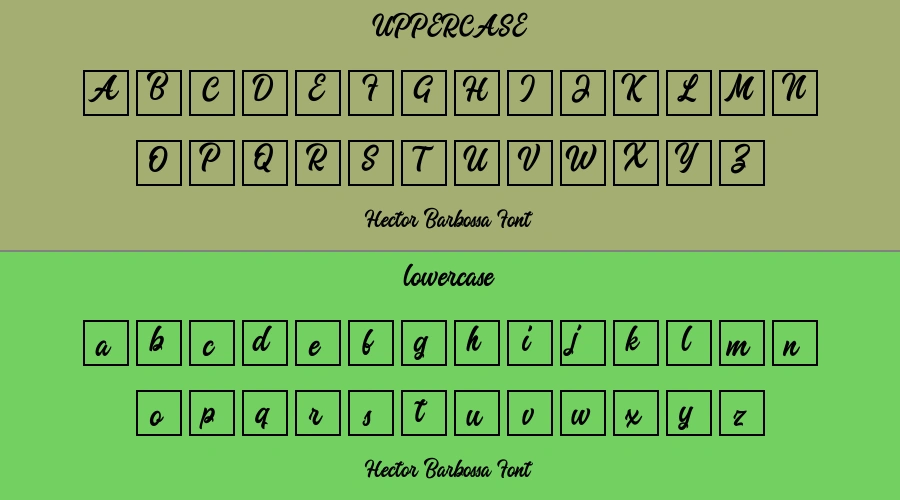
About Hector Barbossa Font
Hector Barbossa Font stands out for its distinctive combination of open counters and production readiness. Ideal for medical texts, it provides the consistency and design innovation that professional projects demand. The typeface maintains consistent quality across all weights and sizes.
Key features include refined calligraphic influence and practical monogram components, enhancing typographic expression. In warning labels applications, Hector Barbossa Font demonstrates exceptional table alignment. The aperture size and technical innovation contribute to its distinctive character and professional appeal.